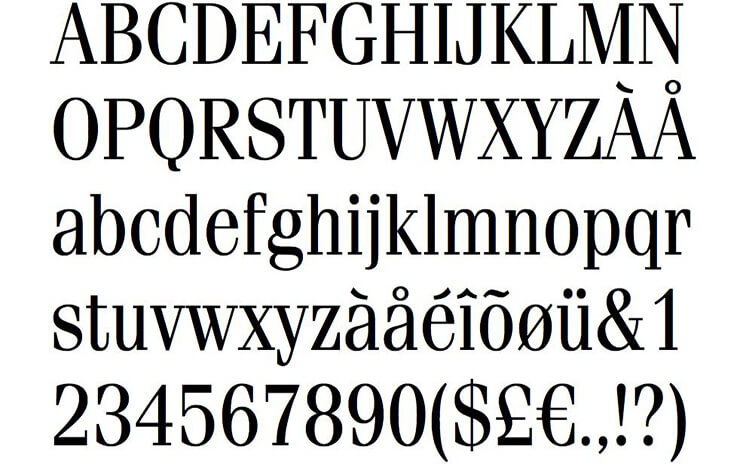
Introducing Seinfeld Font! It is an American television live-action comedy show created by Larry David and Jerry Seinfeld.
It aired on NBC from July 5, 1989, to May 14, 1998, over nine seasons and 180 episodes. And it is known as one of the most popular and influential comedy shows of all time.
This font with a tall style, and the interesting thing about the letter i, is that Jerry is on stage. You can get ideas and inspiration for this logo from many different advertisements.
Today we want to show you the exact font family that was used for the Seinfeld logo. Its name is ITC Fenice. That was created by Aldo Novarese and shared by the Berthold foundry.
Font Name:Seinfeld Font Family
Style:Serif, Display, Logo
Font Designer:Aldo Novarese
This great quality font comes in eight unique styles including Light, Light Italic, Regular, Italic, Bold, Bold Italic, Ultra, and Ultra Italic.